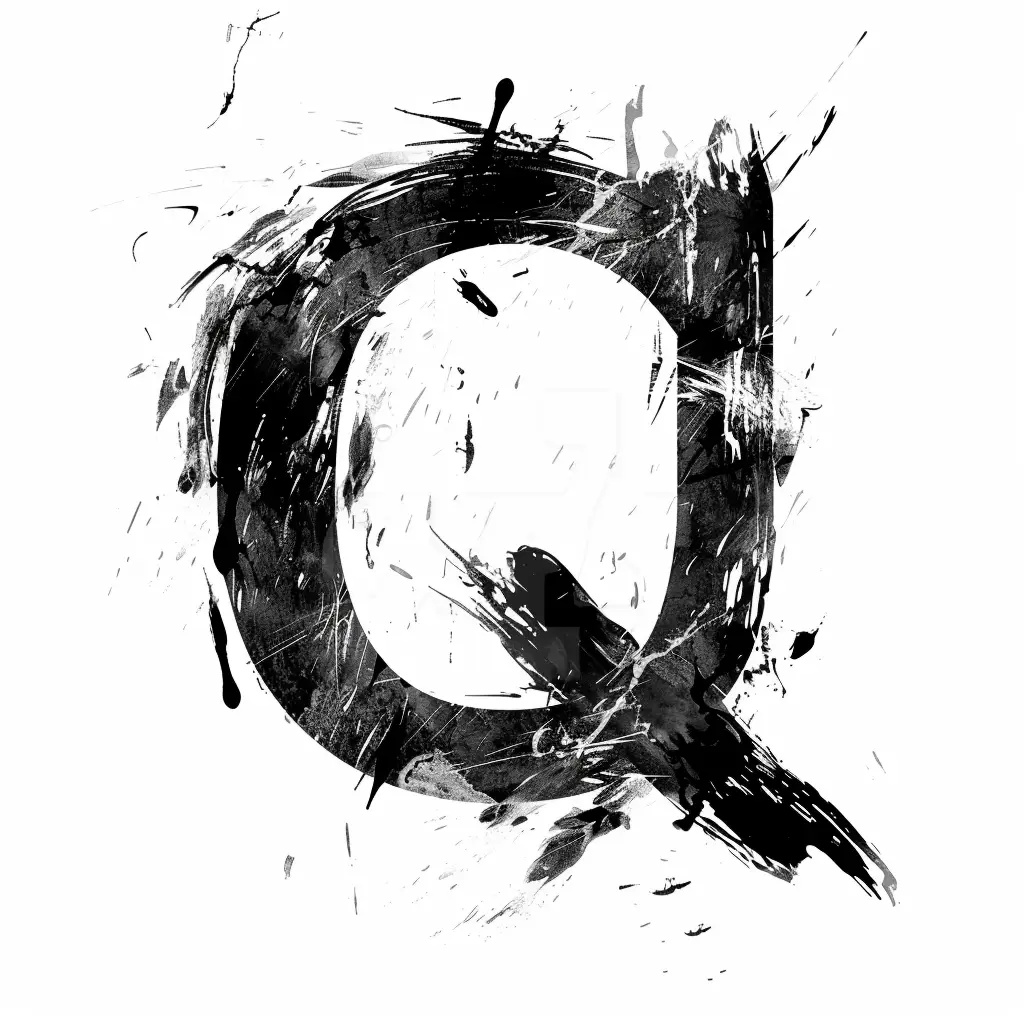
The image features a stylized, artistic representation of the letter "Q" rendered in black and white. The design employs a dynamic, abstract style with bold brushstrokes, splatters, and drips, creating a textured, expressive effect. The contrast between the dark, chaotic outer strokes and the clean, white interior of the "Q" emphasizes its form, while scattered ink splatters and lines add a sense of movement and spontaneity.